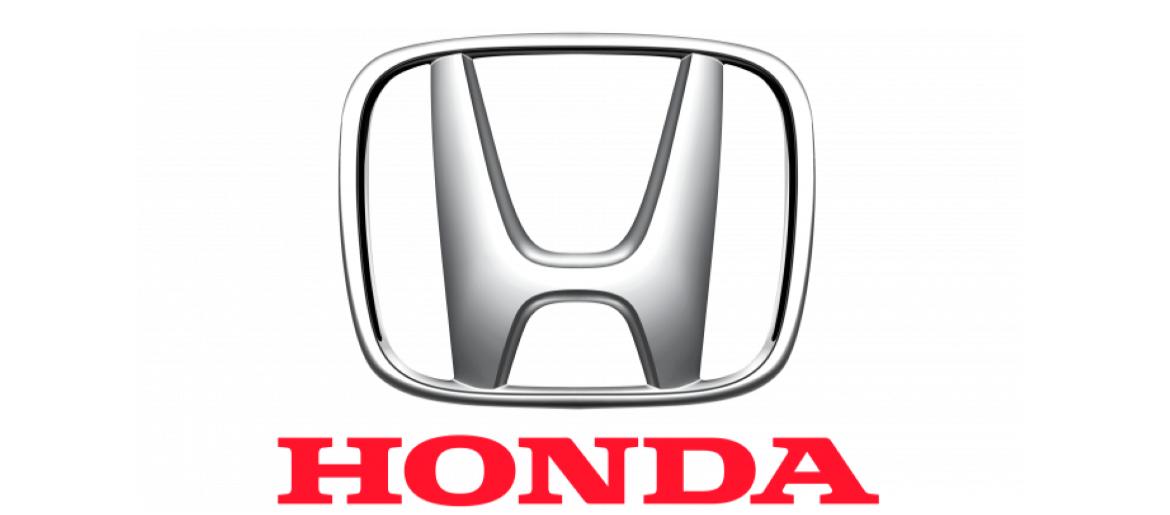
Honda Font
The Honda Font is a defining element of the brand’s identity, representing precision, reliability, and innovation. The typography used in the Honda logo is based on ChunkFive, a bold and structured sans-serif typeface that exudes confidence and strength. Its clean lines and balanced proportions perfectly align with Honda’s reputation for engineering excellence and long-lasting performance.